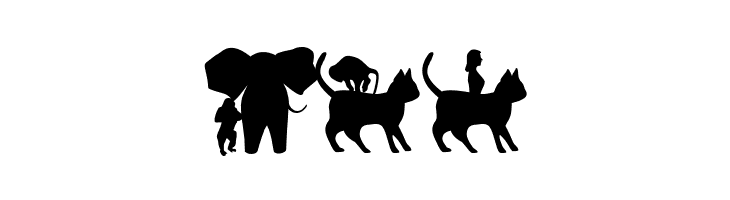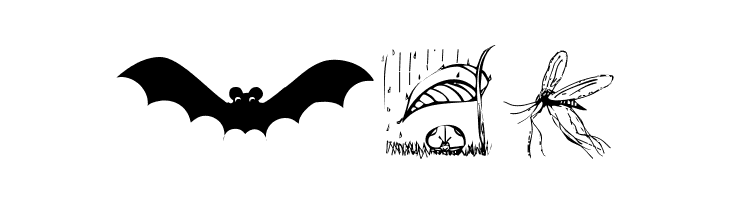
A decorative font using animal and insect silhouettes for each character.
A playful decorative font made of animal silhouettes and tracks.
Silhouette font using animals and humans to form each character.
Animal silhouettes create each character in a decorative, illustrative style.
A playful font with animal-themed letterforms, perfect for fun and engaging designs.